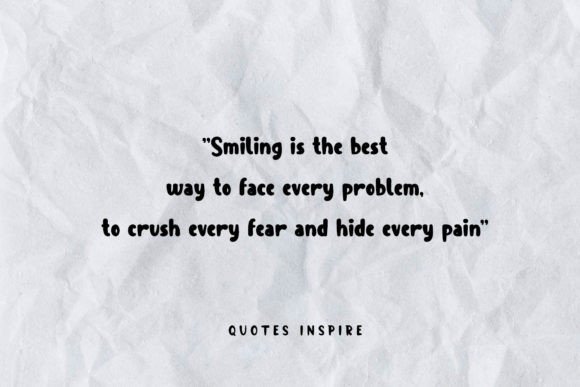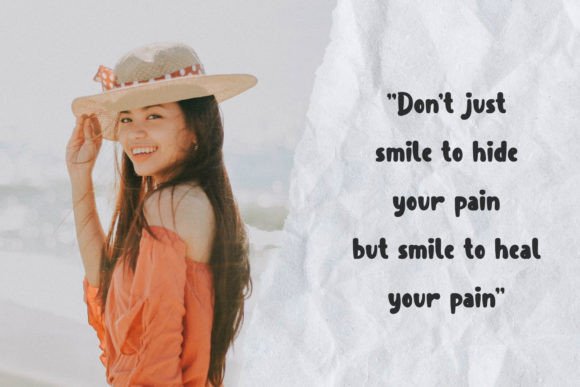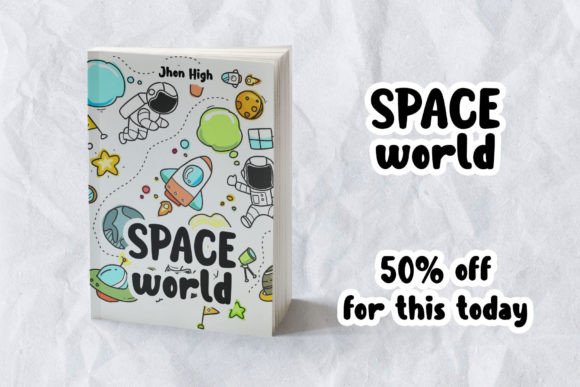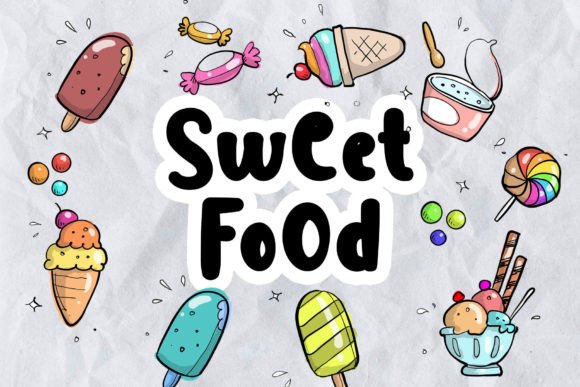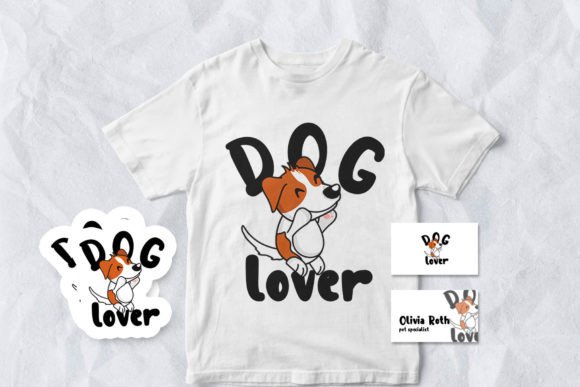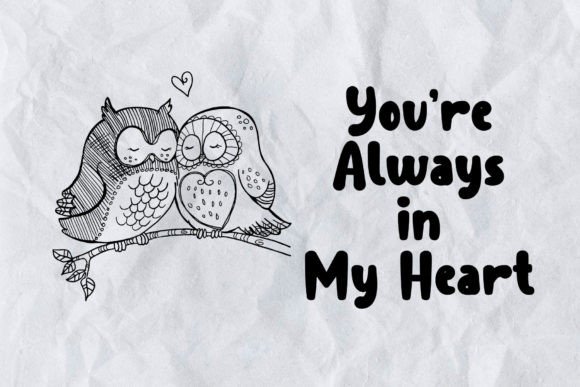
Introduction to Perfect Smile Font
Have you ever been working on a creative project and stumbled upon the perfect font that makes your design pop? For me, that moment happened when I discovered the Perfect Smile Font. Its fun, modern style immediately caught my attention, and I knew I had to share it with fellow designers.
As a go-to design resource, the Perfect Smile Font offers a high-quality solution for projects targeting children, while also working beautifully for a wide range of other designs. Its versatility is what makes it truly valuable for designers, allowing us to create visually appealing and engaging designs with ease.
From logos and packaging designs to posters and t-shirts, the Perfect Smile Font is a great choice for any creative project. Plus, with a transparent background option available for download, designers can customize their designs to fit any style or aesthetic.
Key Features of Perfect Smile Font
- High-quality design resource with a modern and friendly feel, ideal for creative projects and branding materials.
- Perfect Smile Font is available in a single weight, making it easy to integrate into your design without worrying about multiple font styles.
- Features a transparent background, allowing for seamless integration with any background or design element.
- Designed with a clean and minimalist aesthetic, making it perfect for use in logos, typography, and other design elements.
Honest Review: Perfect Smile Font
I recently had the chance to work with the Perfect Smile Font in a creative project, and I was pleasantly surprised by the high quality of this design resource. The font is a great addition to any designer’s toolkit, offering a unique and stylish look that can elevate any project.
- ✨ High-quality design: The Perfect Smile Font is well-designed, with clean lines and a modern aesthetic.
- ✨ Versatile: The font is suitable for a wide range of creative projects, from logos to signage to digital products.
While the Perfect Smile Font is a valuable design resource, there are some limitations to consider:
- ⚠️ Limited language support: The font may not support all languages, which could be a limitation for international projects.
- ⚠️ No bold or italic versions: The font only comes in regular weight, which may not be suitable for projects that require bold or italic text.
Overall, I’m impressed with the Perfect Smile Font and would recommend it to designers looking for a high-quality, versatile font for their creative projects.
Perfect Smile Font
Tips for Getting the Most Out of Perfect Smile Font
Use Perfect Smile Font with a transparent background to give your designs a unique and creative touch. Experiment with different font sizes, colors, and styles to get the most out of this high-quality design resource.
Perfect Smile Font is perfect for creating social media graphics, posters, logos, presentations, and any other creative project that requires a unique and high-quality design. It’s also great for designers who want to add a touch of professionalism and creativity to their work.